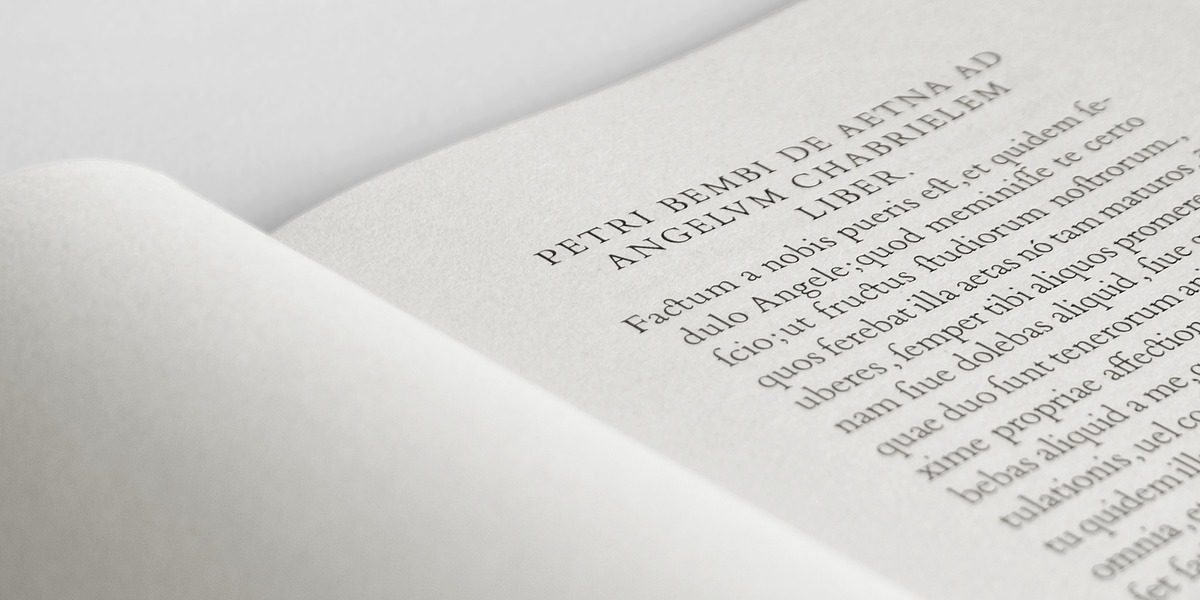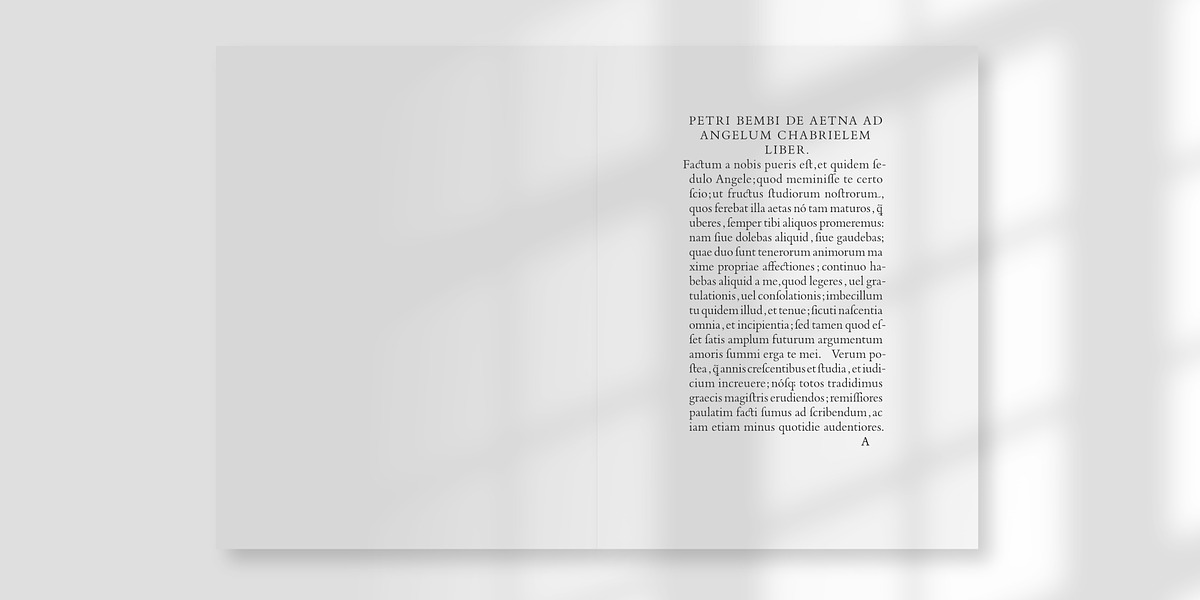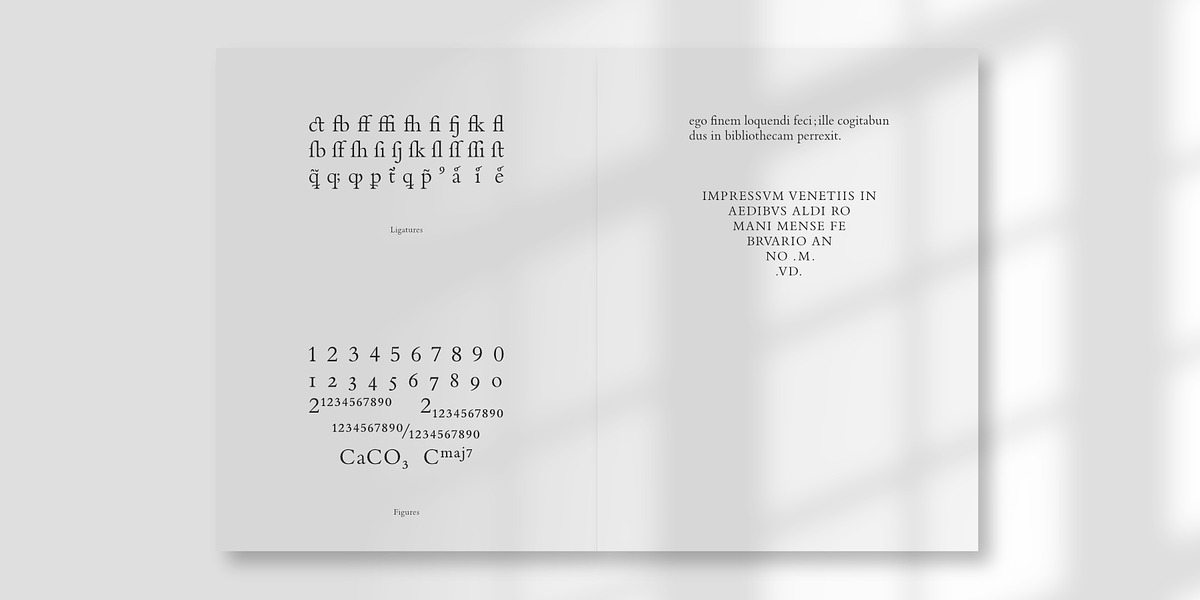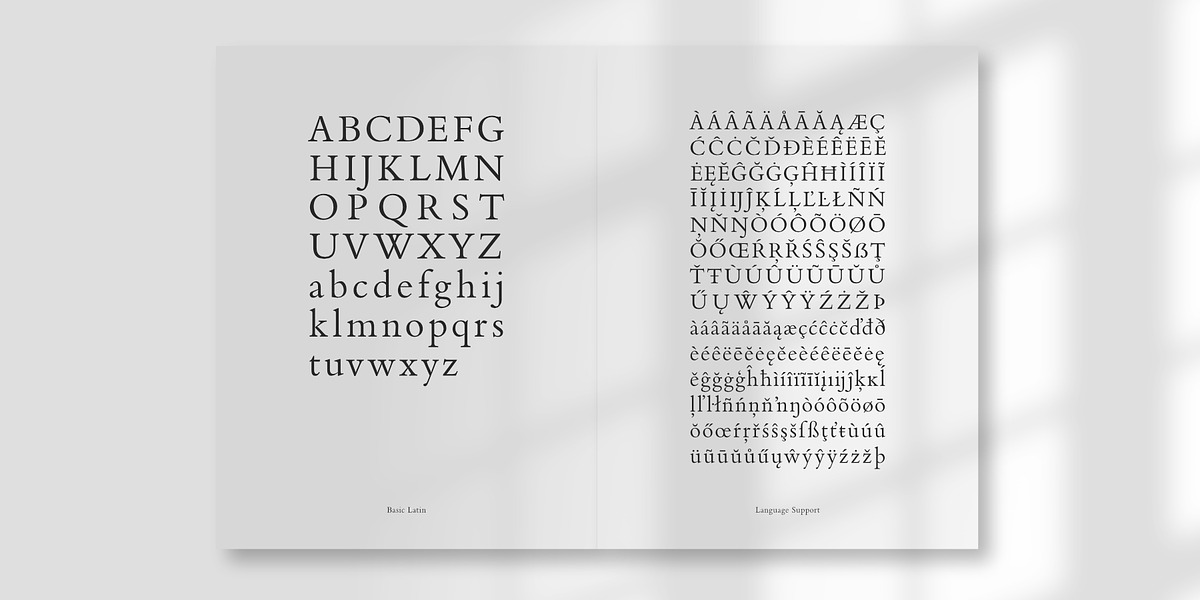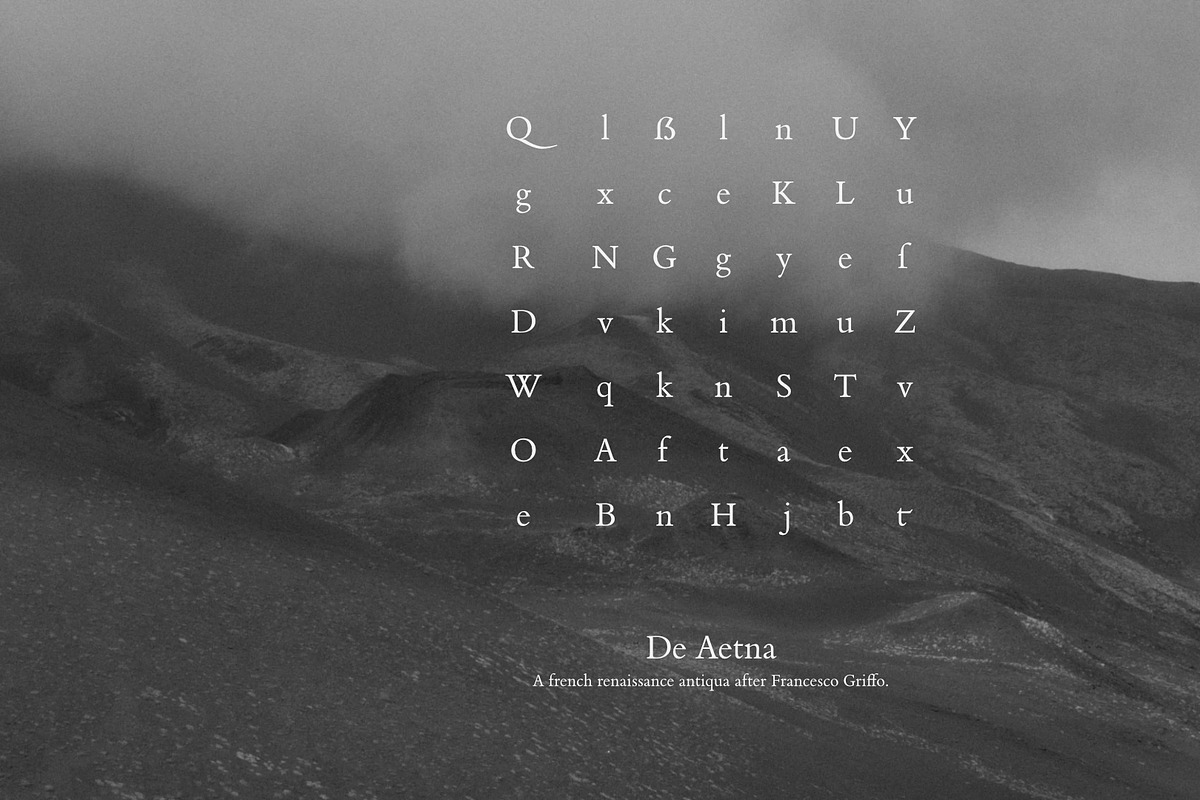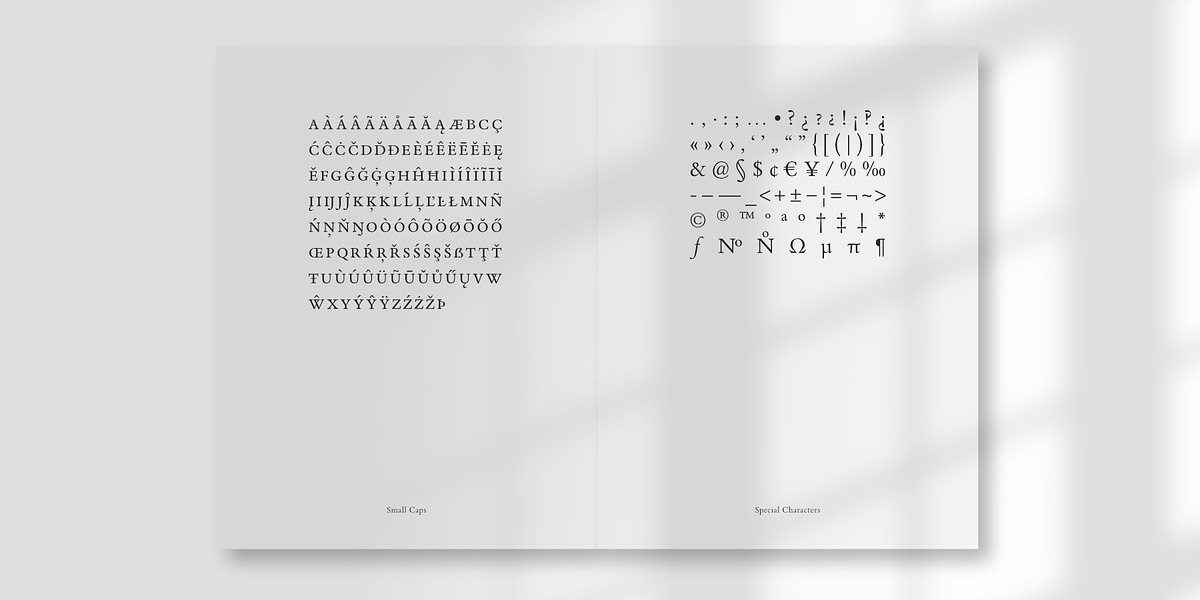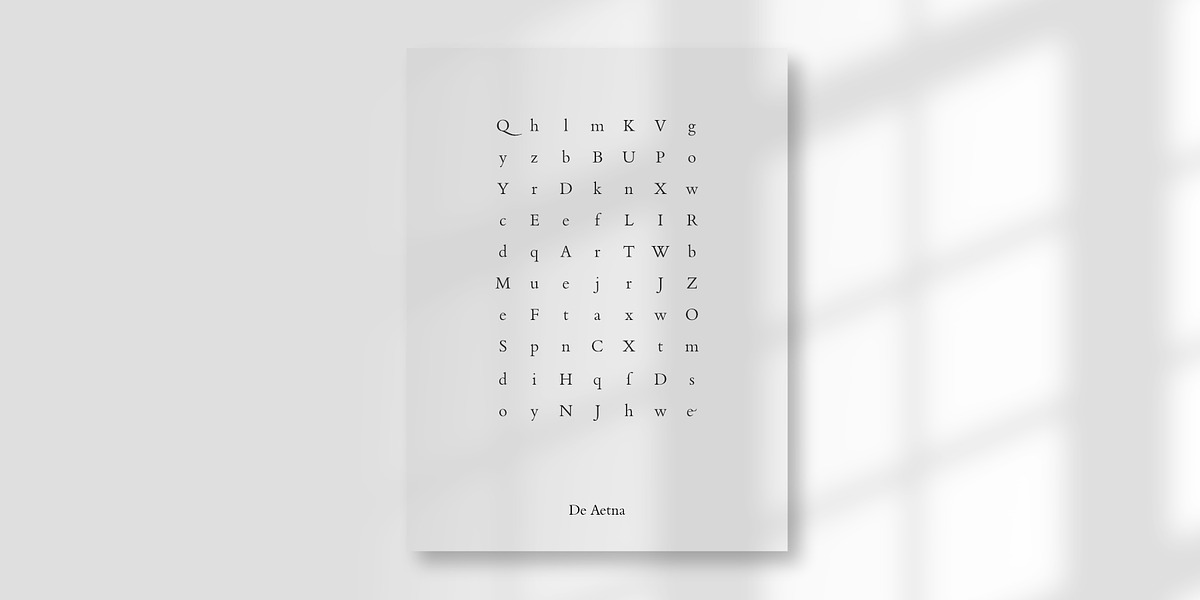
De Aetna Regular Pro
De Aetna is a french renaissance antiqua after Francesco Griffo’s font for Pietro Bembo’s book ‘De Aetna ad Angelum Chabrielem Liber’. The perfect choice for typesetting large volumes of text, such as novels and travelogues. Unobtrusive, thanks to its classic elegance and legible, thanks to its balanced proportions.
The character set of ‘De Aetna Regular Pro’ includes the unicode blocks latin basic, latin additional, latin extended and the german letter sharp S as well as a variety of OpenType font features (dlig, hist, calt, hlig, liga, tnum, smcp, onum, frac, dnom, numr, sups, subs, c2sc and a stylistic set). ‘De Aetna Regular Pro” is additionally equipped with ink traps for smaller text sizes.